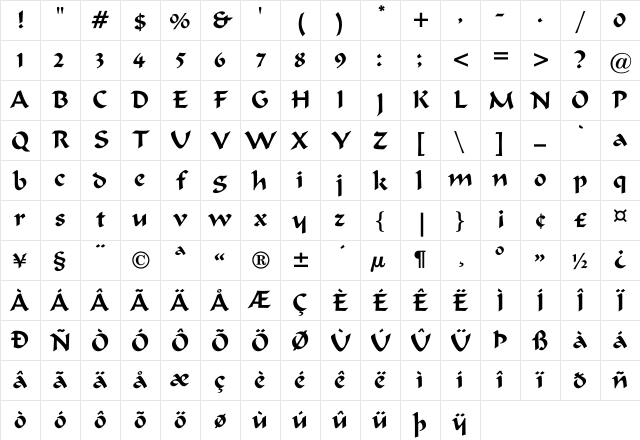
Complete FormalistScript-Regular glyph index. Displaying only characters natively supported by FormalistScript-Regular font.
FormalistScript-Regular flows with the natural rhythm of handwritten lettering, making it ideal for designs that call for warmth and personal expression.
Font Pairing: Combine FormalistScript-Regular with a simple geometric sans for maximum contrast - the tension between flowing curves and clean structure is a classic typographic pairing.
Pro Tip: Use FormalistScript-Regular for short runs of text - names, titles, or taglines. Extended body copy in script faces tires the eye quickly.